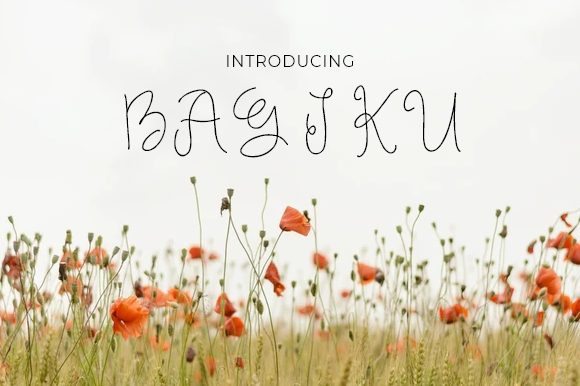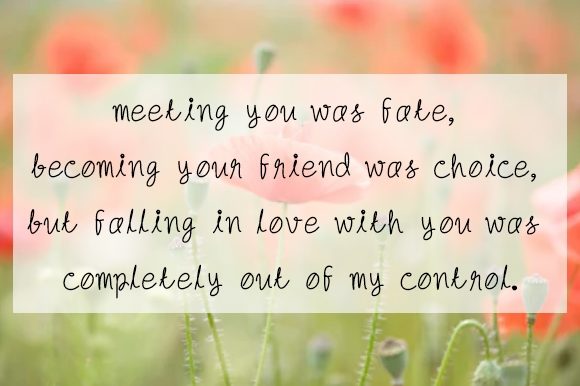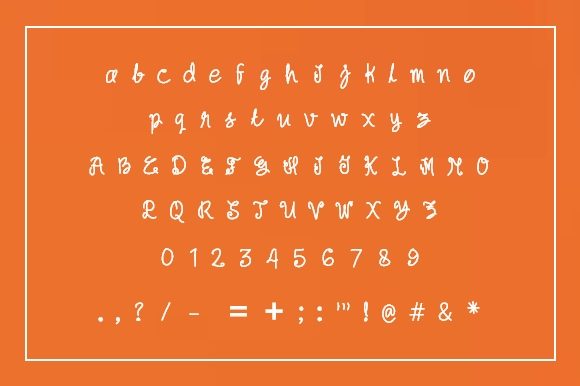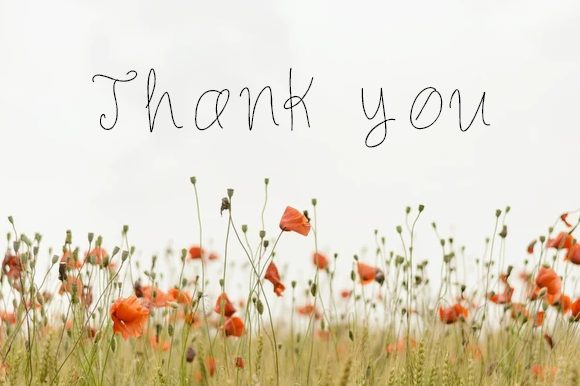
Bagiku Font
About Bagiku Font
Bagiku is a timeless handwritten font. It maintains its classy calligraphic influences while feeling contemporary and fresh. Get inspired by its authentic feel and use it to create gorgeous wedding invitations, beautiful stationary art, eye-catching social media posts, and cute greeting cards.